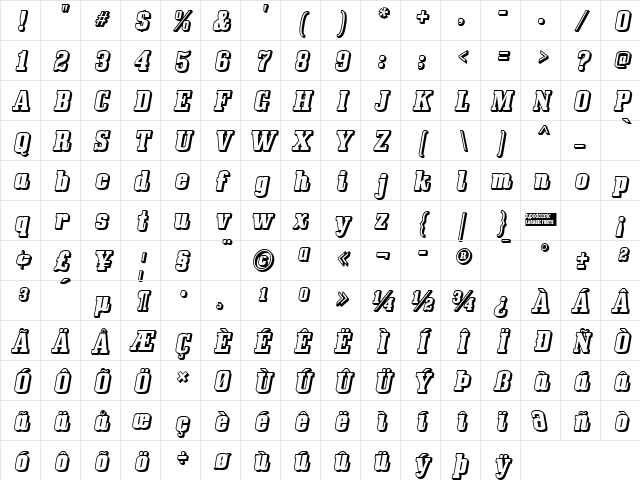
Bullpen 3D Regular
Design Context for Bullpen 3D
Bullpen 3D is a composed and adaptable typeface that performs quietly and consistently across a wide range of design contexts.
Pro Tip: Use Bullpen 3D in both headline and body roles to test its range before committing to a single application.